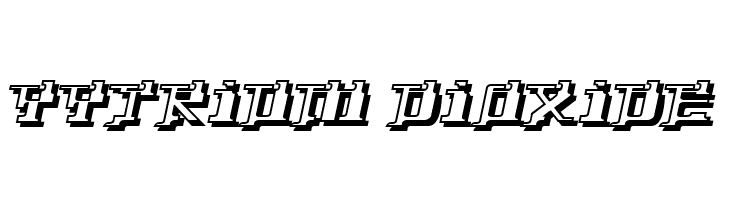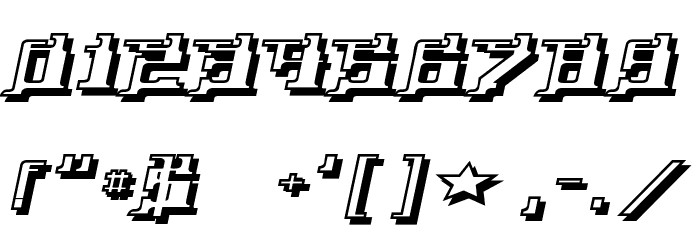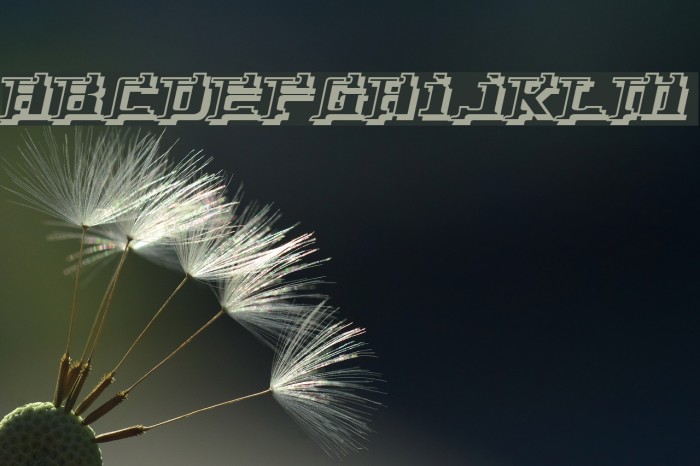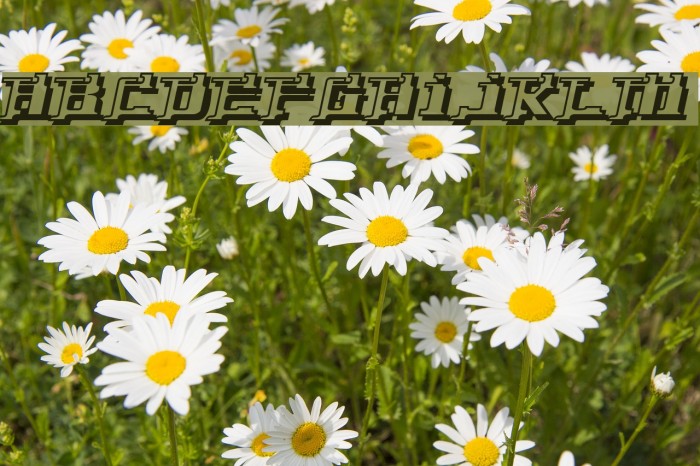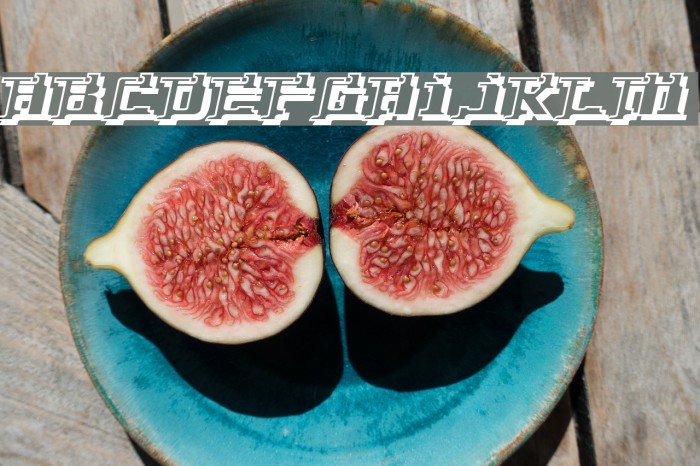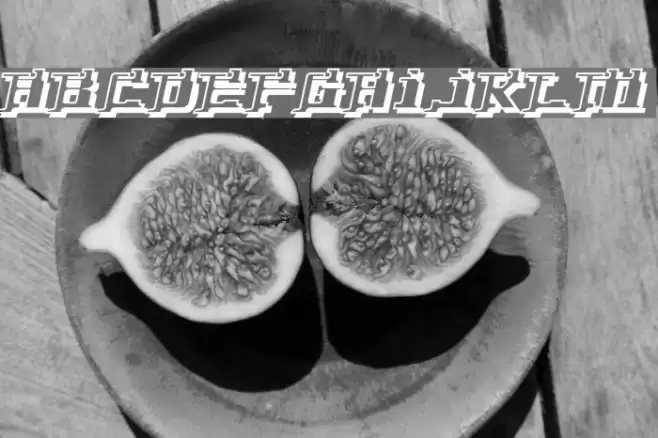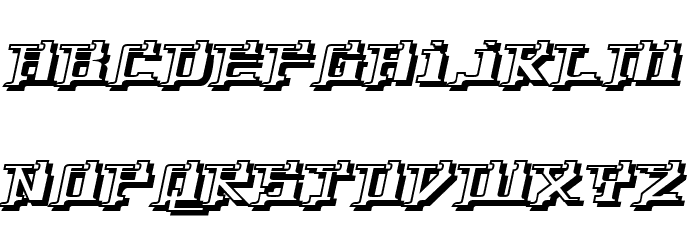
Yytrium Dioxide Font
Yytrium Dioxide Description
This font features a bold, three-dimensional style with a distinct shadow effect that gives it a striking, futuristic appearance. The characters are angular and geometric, with sharp edges and a blocky structure that adds to its modern aesthetic. The uppercase and lowercase letters maintain a consistent style, while the numbers and special characters are designed to match the overall theme. This font is highly decorative, making it ideal for eye-catching designs.
| Overall Style | Futuristic, Modern |
| Proposed Projects | Ideal for video game titles, sci-fi movie posters, tech company logos, and any project requiring a modern, standout typeface. |